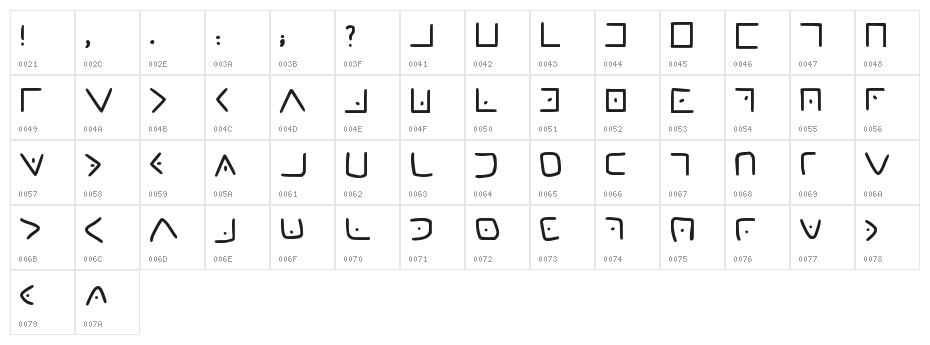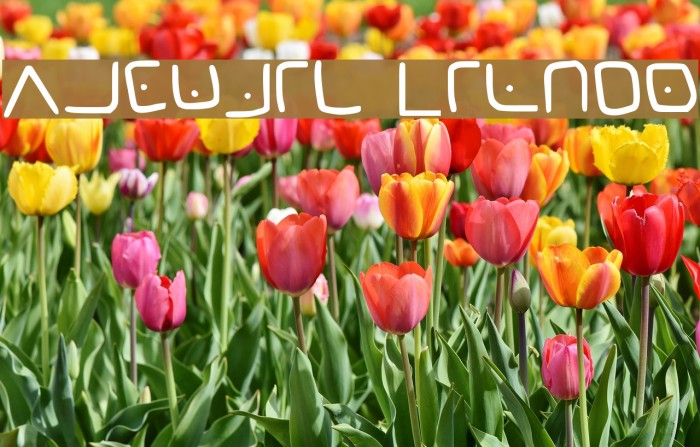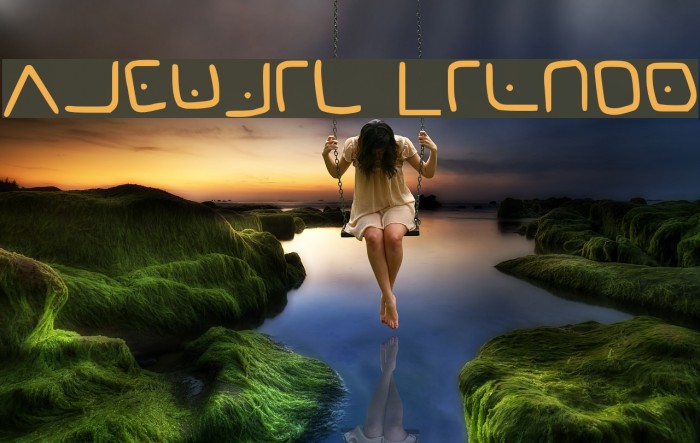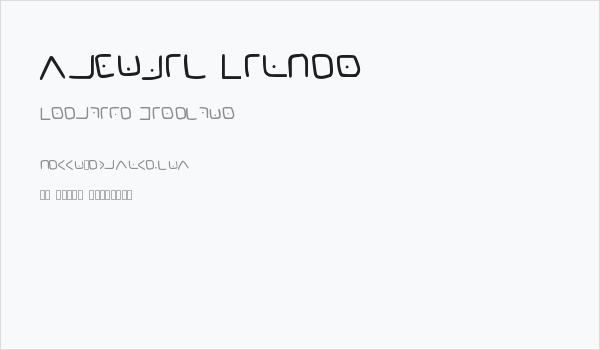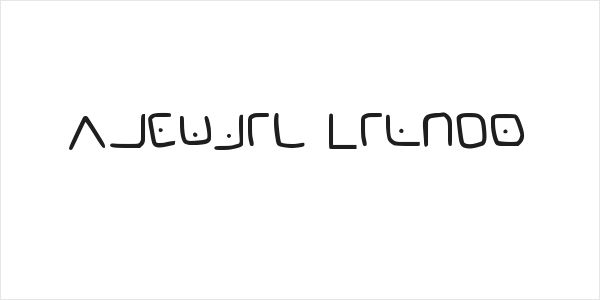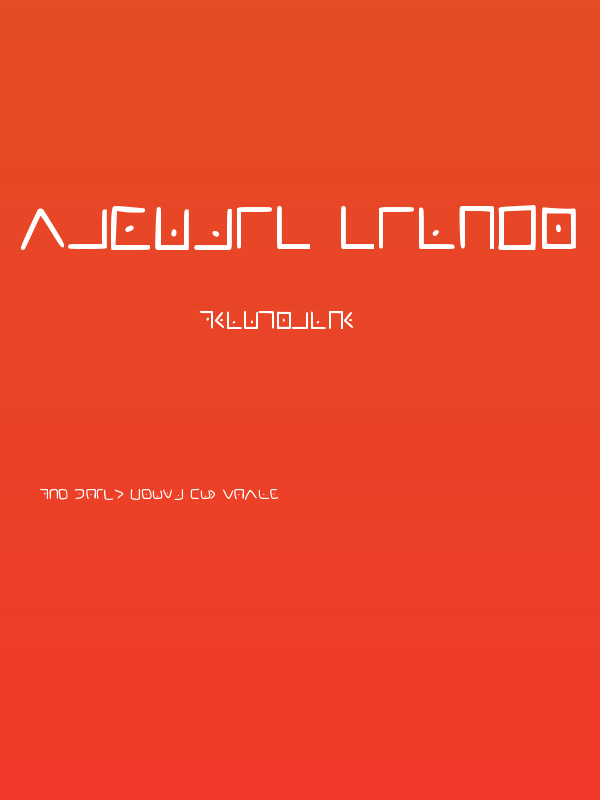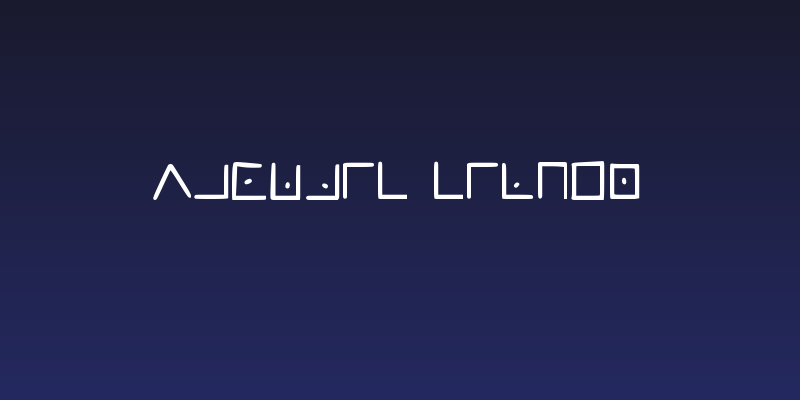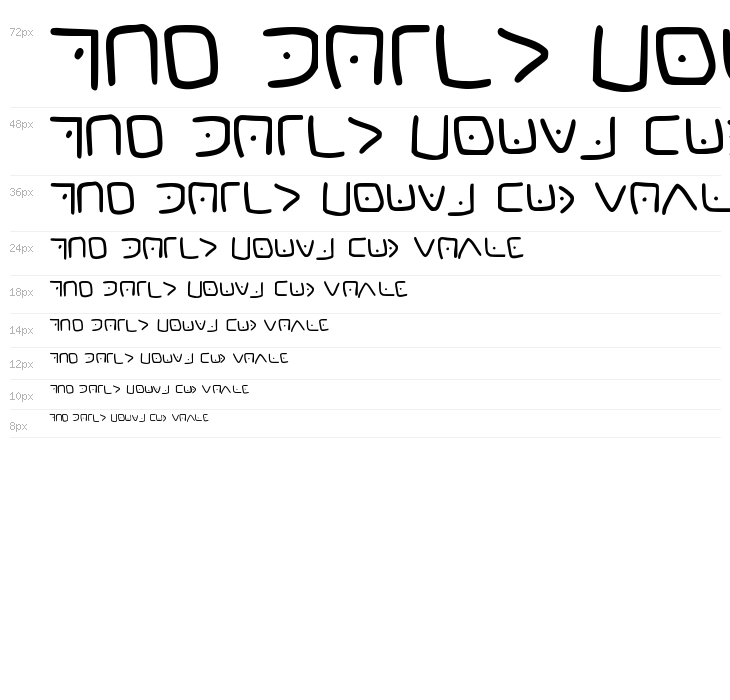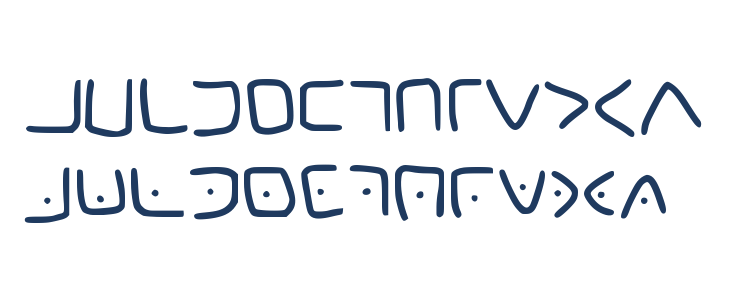
Masonic Cipher Font
Masonic Cipher Description
This font features a unique and cryptic design, reminiscent of ancient symbols or runes. Each character is composed of simple geometric shapes, such as lines and curves, creating an enigmatic and mysterious appearance. The uniformity in stroke width and the consistent use of angles give it a cohesive look, while the absence of traditional letterforms adds to its secretive allure. The font lacks typical alphabetical characteristics, making it ideal for decorative or thematic projects where a sense of mystery or secrecy is desired.
| Overall Style | Mystical, Enigmatic |
| Use Case | Decorative, Thematic designs |
| Proposed Projects | Ideal for escape room designs, mystery-themed events, or decorative elements in fantasy games. |